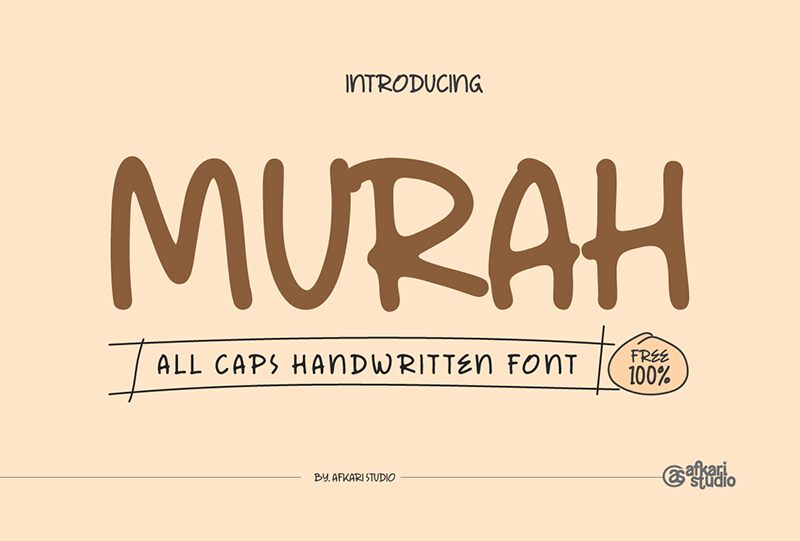
Murah Regular
Murah, crafted by the talented Musthafa Kamal Emje of Afkari Studio, stands as a testament to the artistry that can be achieved in typographic design. This handwritten font weaves elegance with contemporary flair, making it an ideal choice for designers looking to add a touch of personality and warmth to their creations. Its fluid lines and natural flow evoke the intimacy of personal correspondence, while its clean execution ensures legibility and impact.
Perfect for a variety of creative projects-from branding endeavors to editorial layouts-Murah boasts versatility that embraces both traditional charm and modern sophistication. Whether you're crafting wedding invitations, designing bespoke packaging, or setting the mood in narrative graphics, Murah brings your words to life with an authentic handwritten feel that is both approachable and captivating.
Dive into the distinct character of Murah and let your designs resonate with its unique allure.
Perfect for a variety of creative projects-from branding endeavors to editorial layouts-Murah boasts versatility that embraces both traditional charm and modern sophistication. Whether you're crafting wedding invitations, designing bespoke packaging, or setting the mood in narrative graphics, Murah brings your words to life with an authentic handwritten feel that is both approachable and captivating.
Dive into the distinct character of Murah and let your designs resonate with its unique allure.